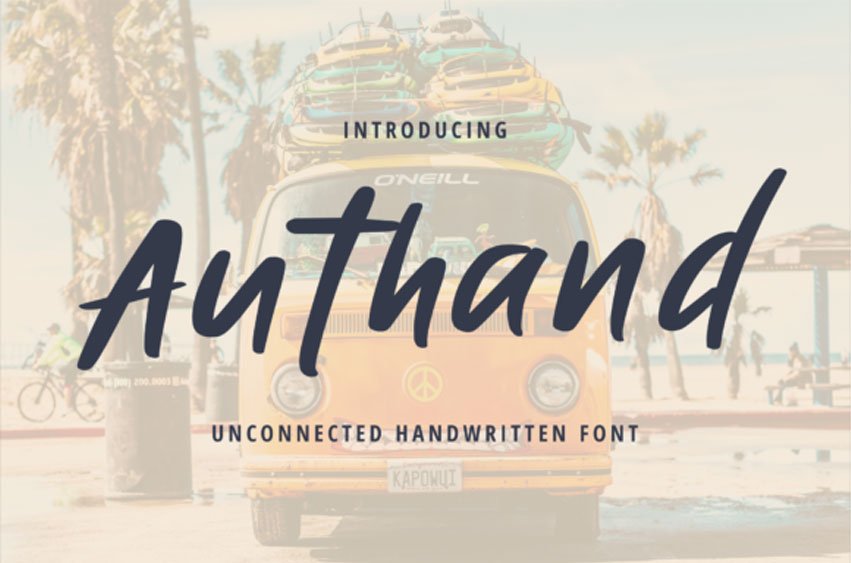
Authand Font is a simple brushed handwritten font.
Masterfully designed to become a true favorite, this font has the potential to bring each of your creative ideas to the highest level!